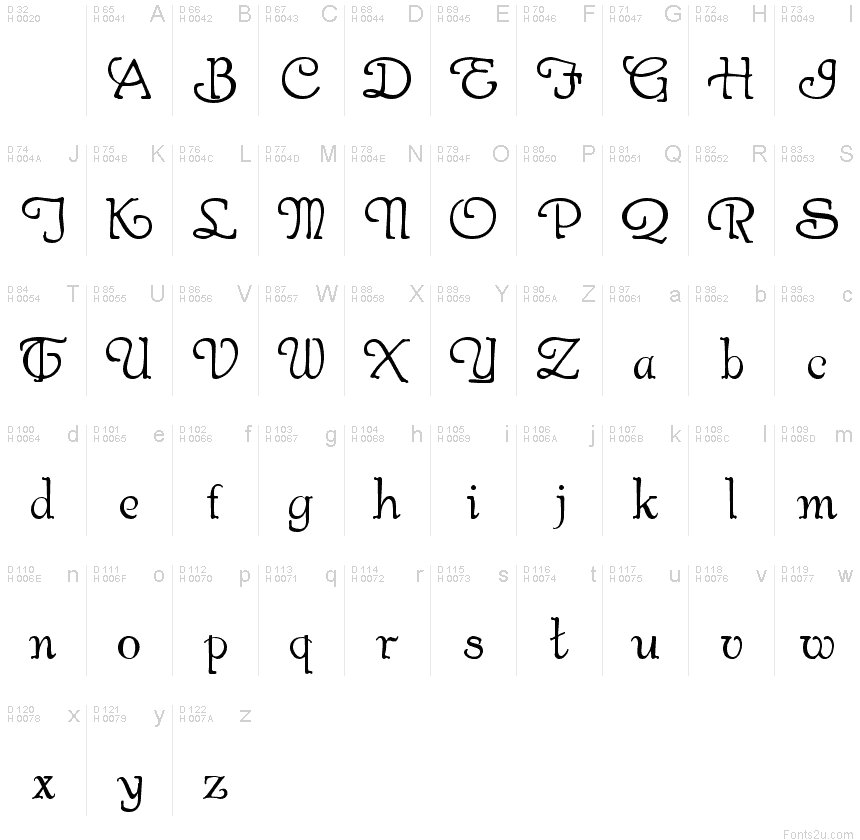
Gaheris by Dave Nalle of Scriptorium Fonts is a free calligraphic display font with sweeping curves and pronounced thick-to-thin strokes. Its tall, poised letters mix broad, rounded forms with fine hairlines and curling flourishes, recalling the elegance of hand-penned historical lettering without looking overly ornate.
Publishing gives these dramatic shapes a natural home on fantasy covers and chapter openings, where the long curves suggest an old tale or courtly setting. It also suits theatrical posters and invitations. In packaging, the large looped letterforms can become part of an illustrated crest or label emblem, tying the lettering directly to heraldic artwork rather than serving only as product text.